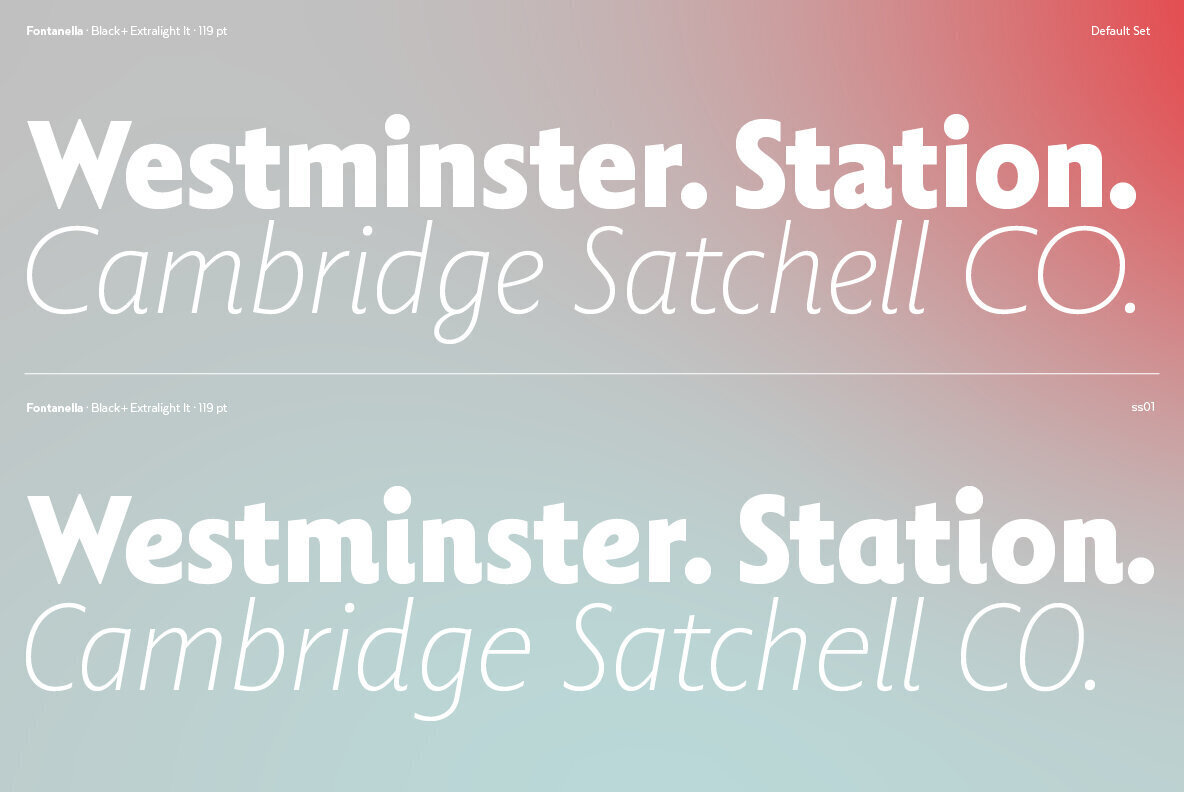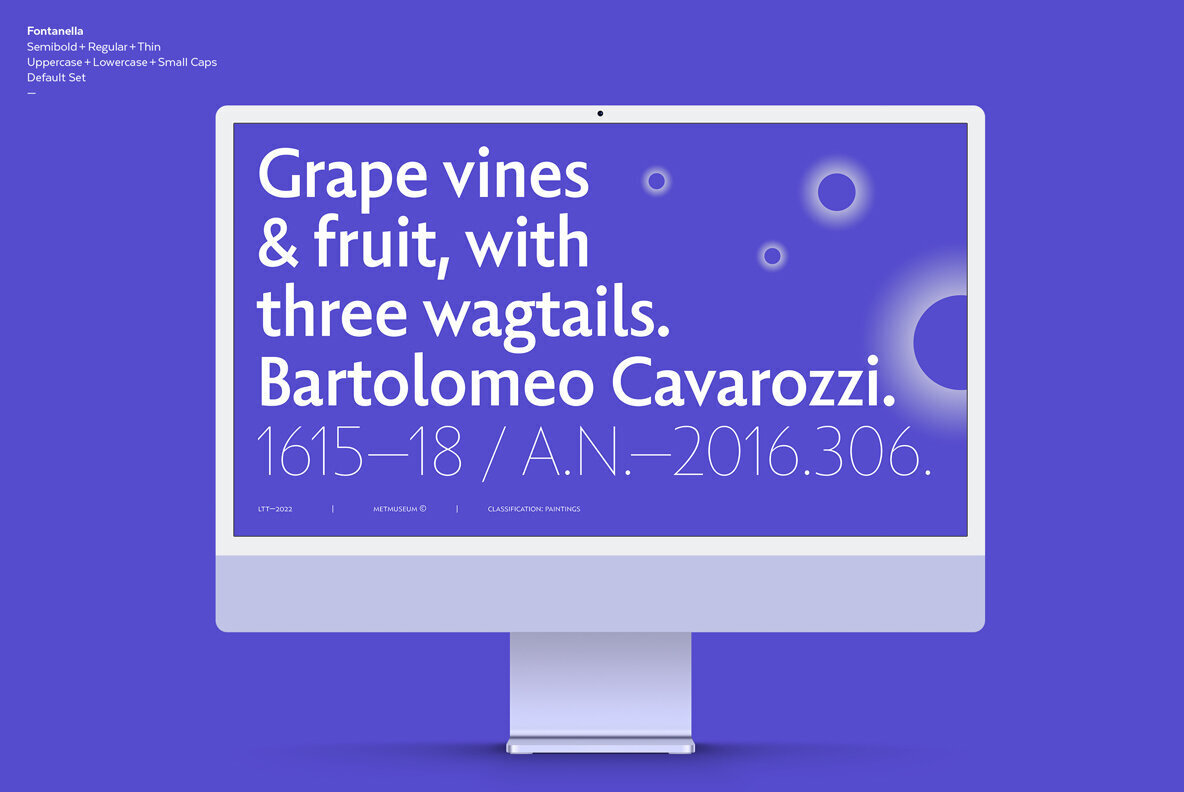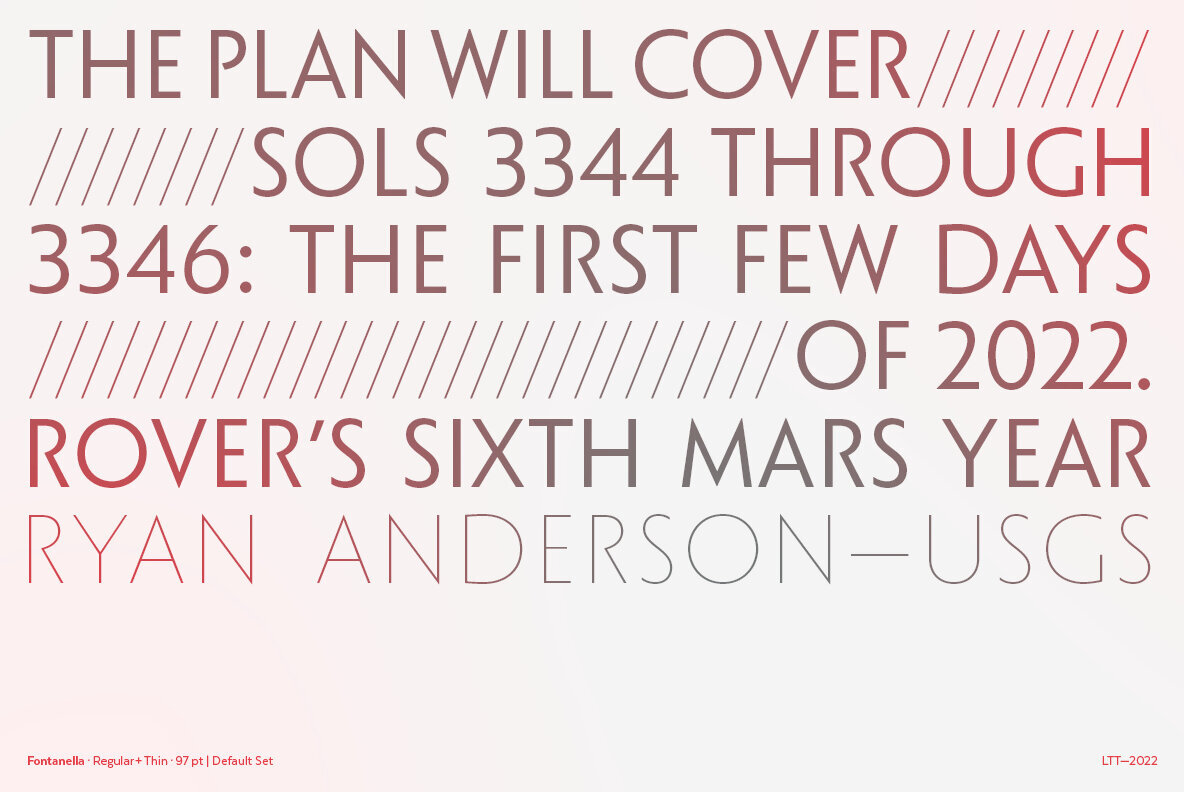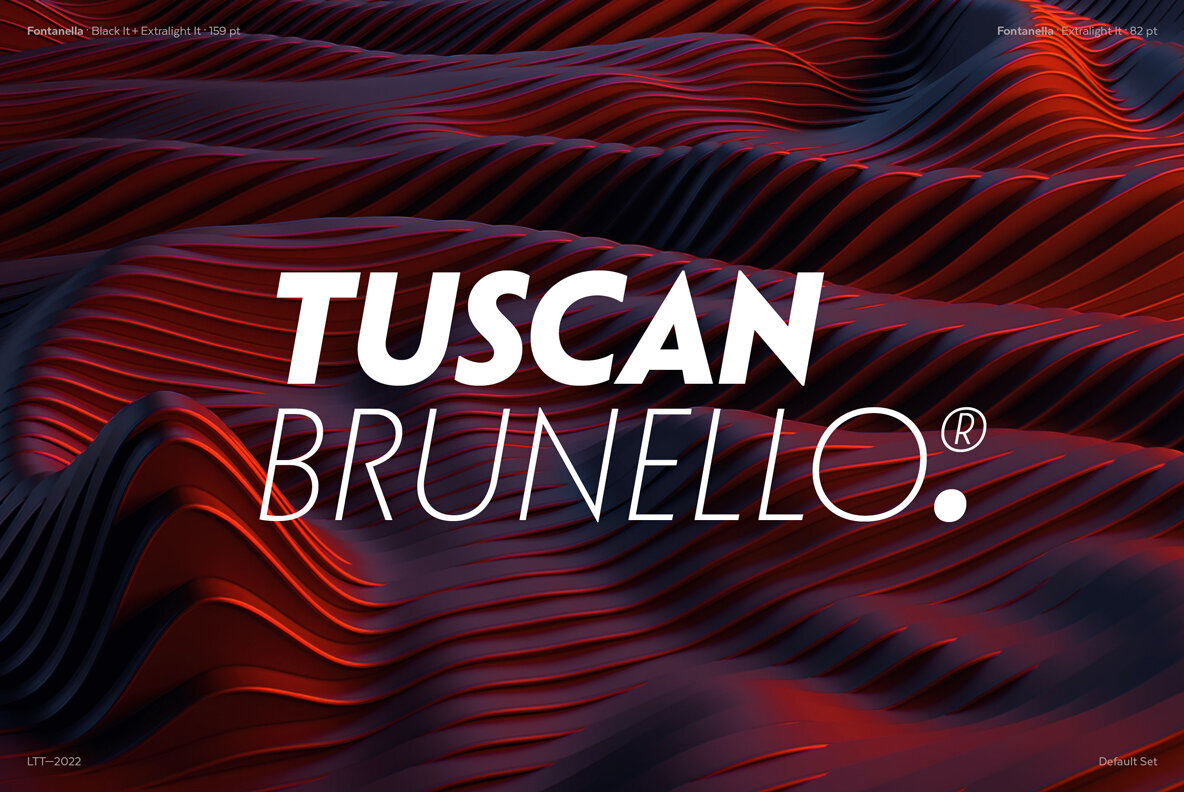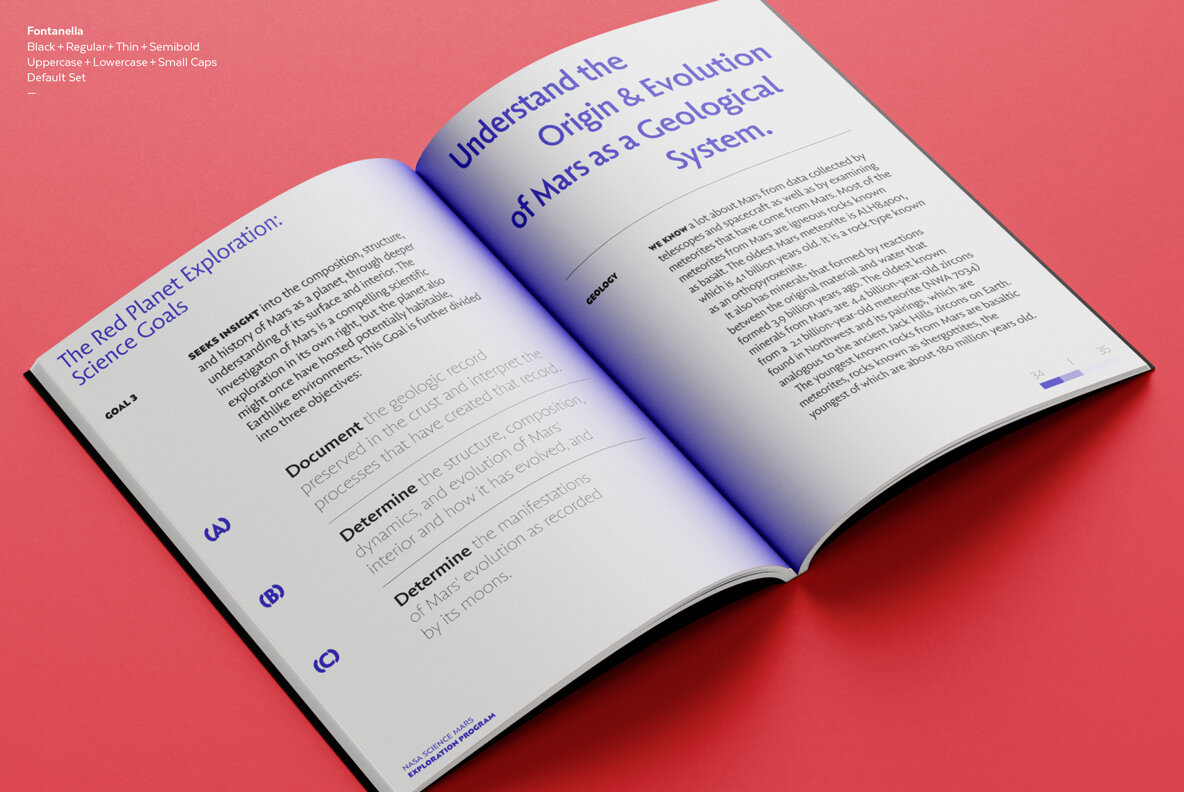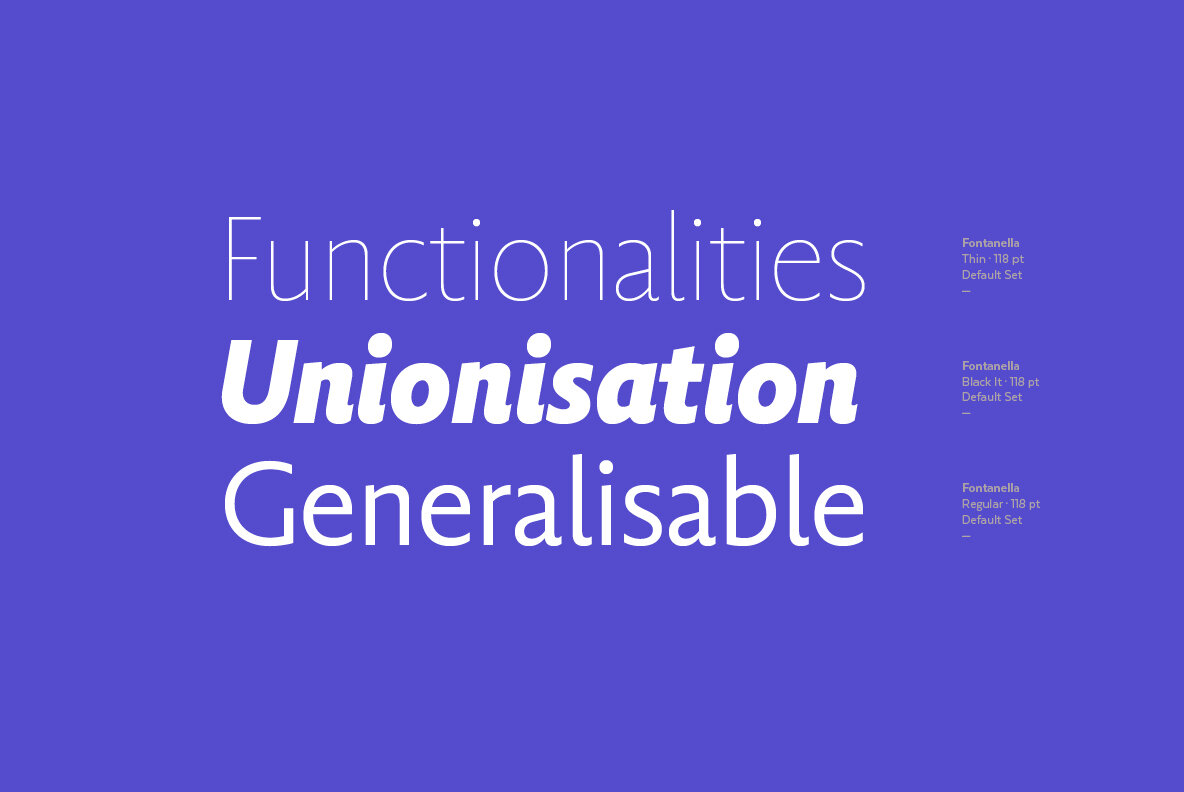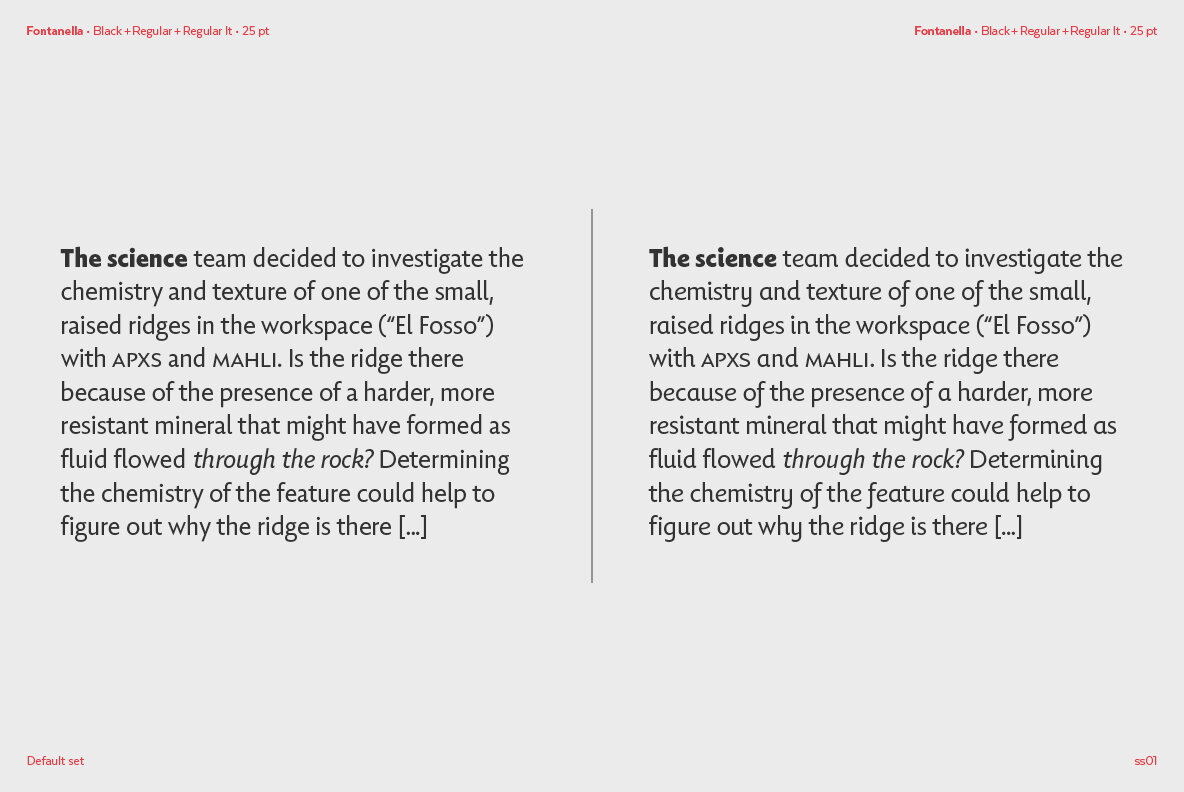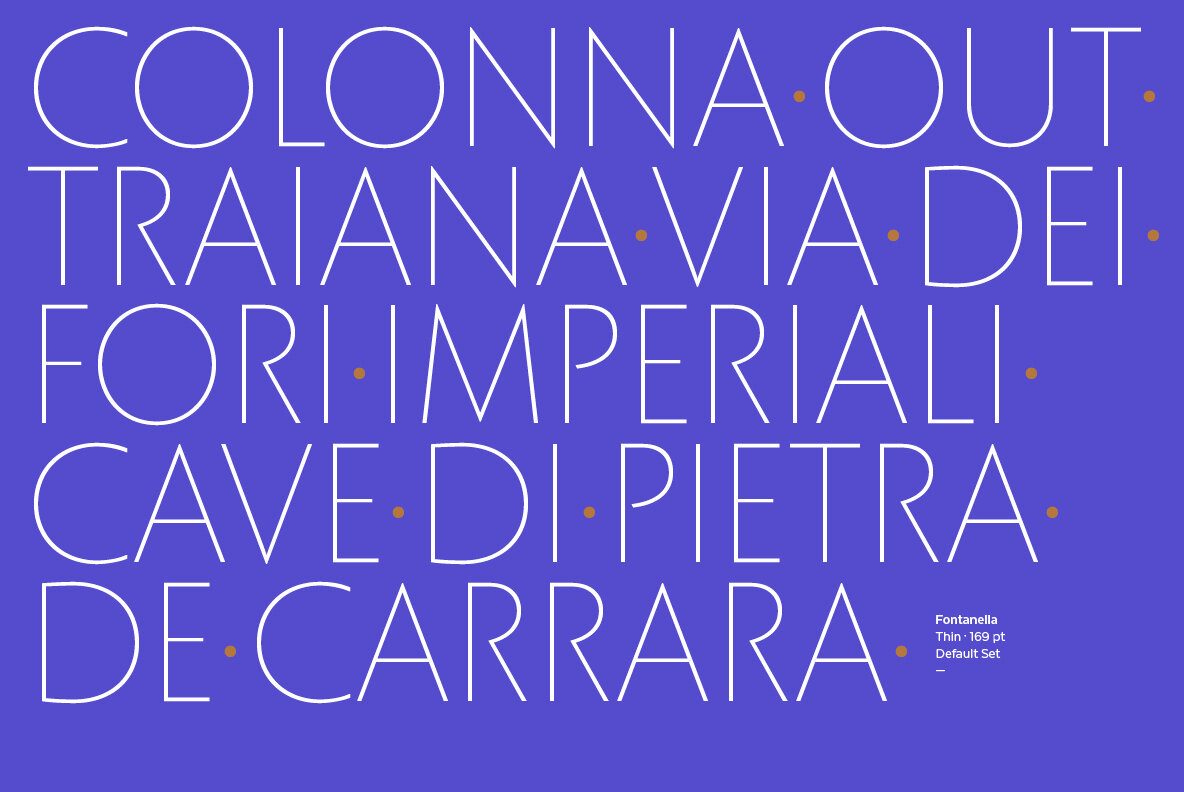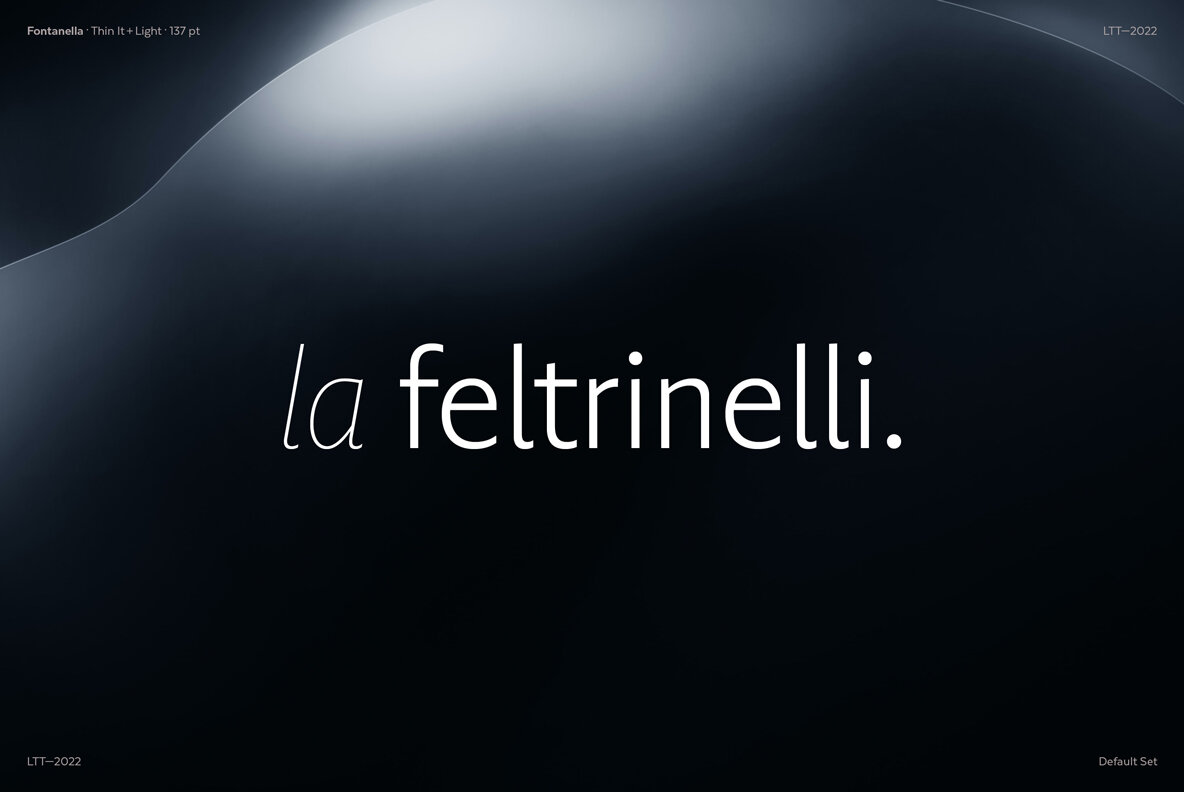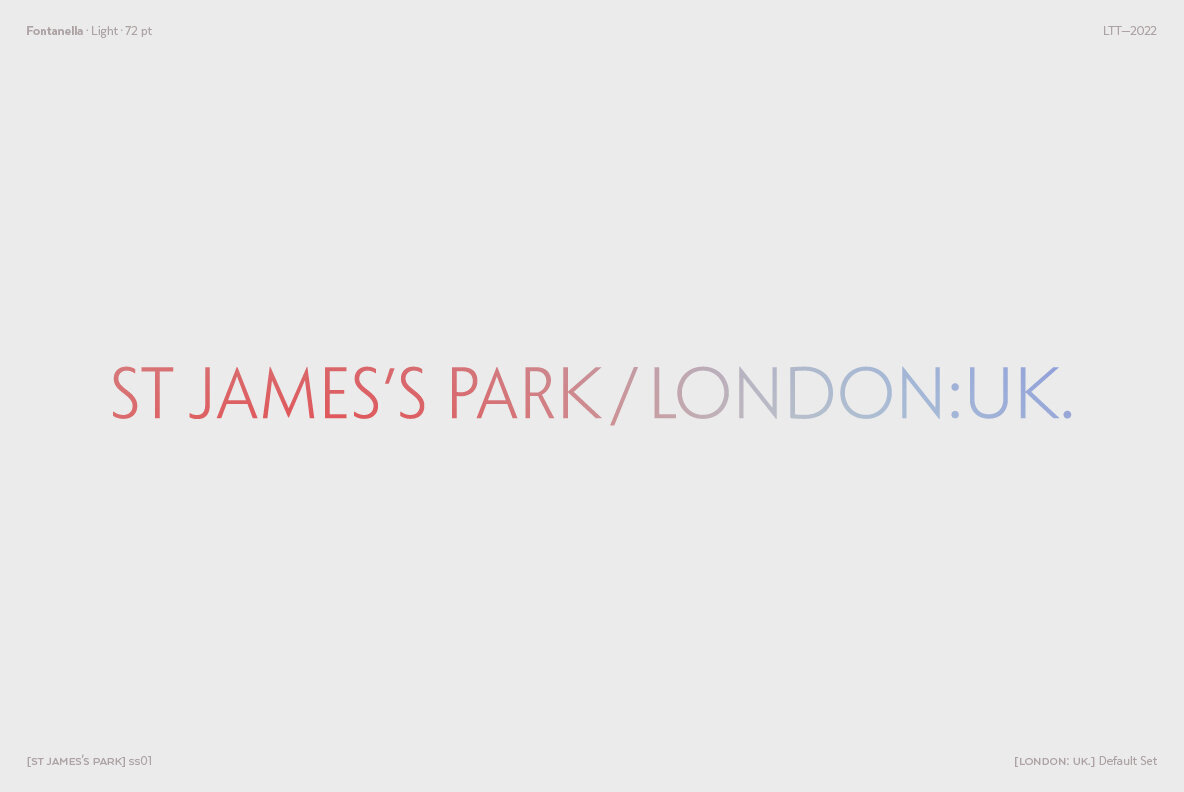
Fontanella
Fontanella is a typeface designed by Coto Mendoza, which emerged from calligraphy and manual drawing exploring the skeleton and classic proportions of Roman capital letters.
This initial process later gave rise to a sans serif family composed of 8 pesos and its italic variants. It also includes small caps, old numbers and width variants in the set of alternates. The slightly enlarged x-height makes it perfect for composing short texts in editorial, fashion, branding, magazine, television, window display and other media projects.
Fontanella a classic spirit reinterpreted in a contemporary language.